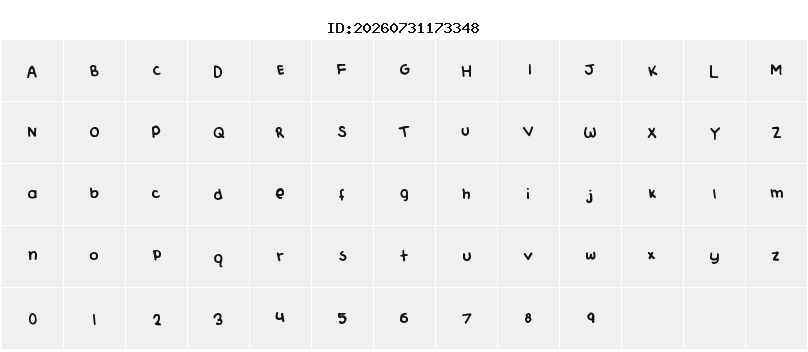
• Font Name: Lemons Can Fly
Lemons Can Fly.ttf is a modern, elegant sans-serif font designed for ultimate readability and visual harmony. Perfect for branding, headlines, web design, and print materials.